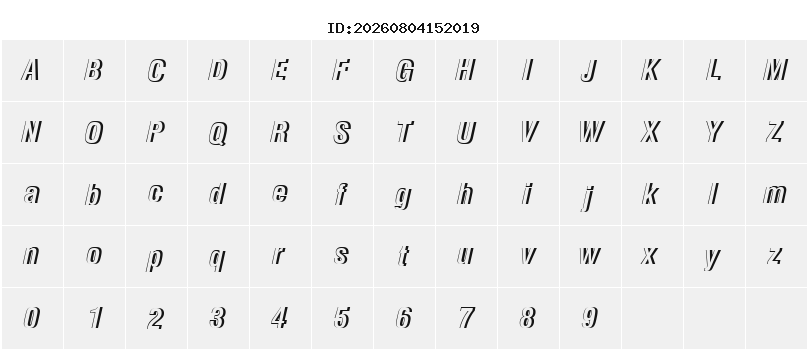
NimbusSanDBolConItaRe1 Preview
• Font Name: NimbusSanDBolConItaRe1
• Full Font Name: NimbusSanDBolConItaRe1
• PostScript Name: NimbusSanD-BoldCondItalRe1
About NimbusSanDBolConItaRe1.ttf
NimbusSanDBolConItaRe1.ttf is a modern, elegant sans-serif font designed for ultimate readability and visual harmony. Perfect for branding, headlines, web design, and print materials.